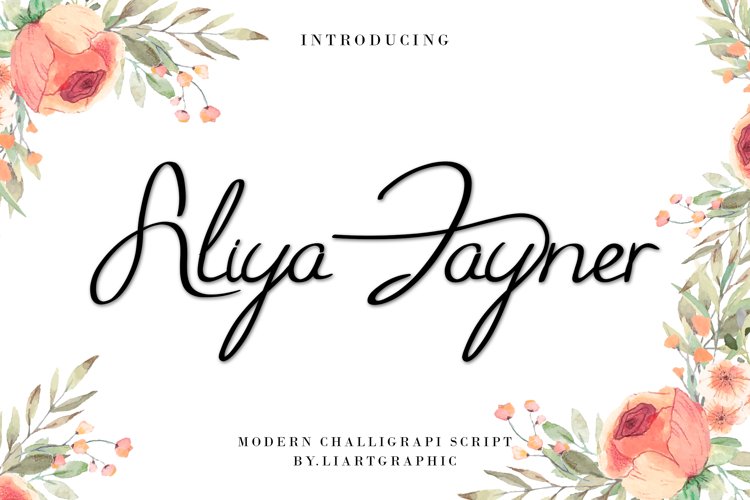
Meet our newest product, we call this product Aliya Jayner font.
Aliya Jayner font are modern challigraphy,
Whit a sweet touch and beautiful indentation in each letter.
Aliya Jayner font is very nice to use on:
Wedding invitation,fashion magazine,logos,signatures,and photography